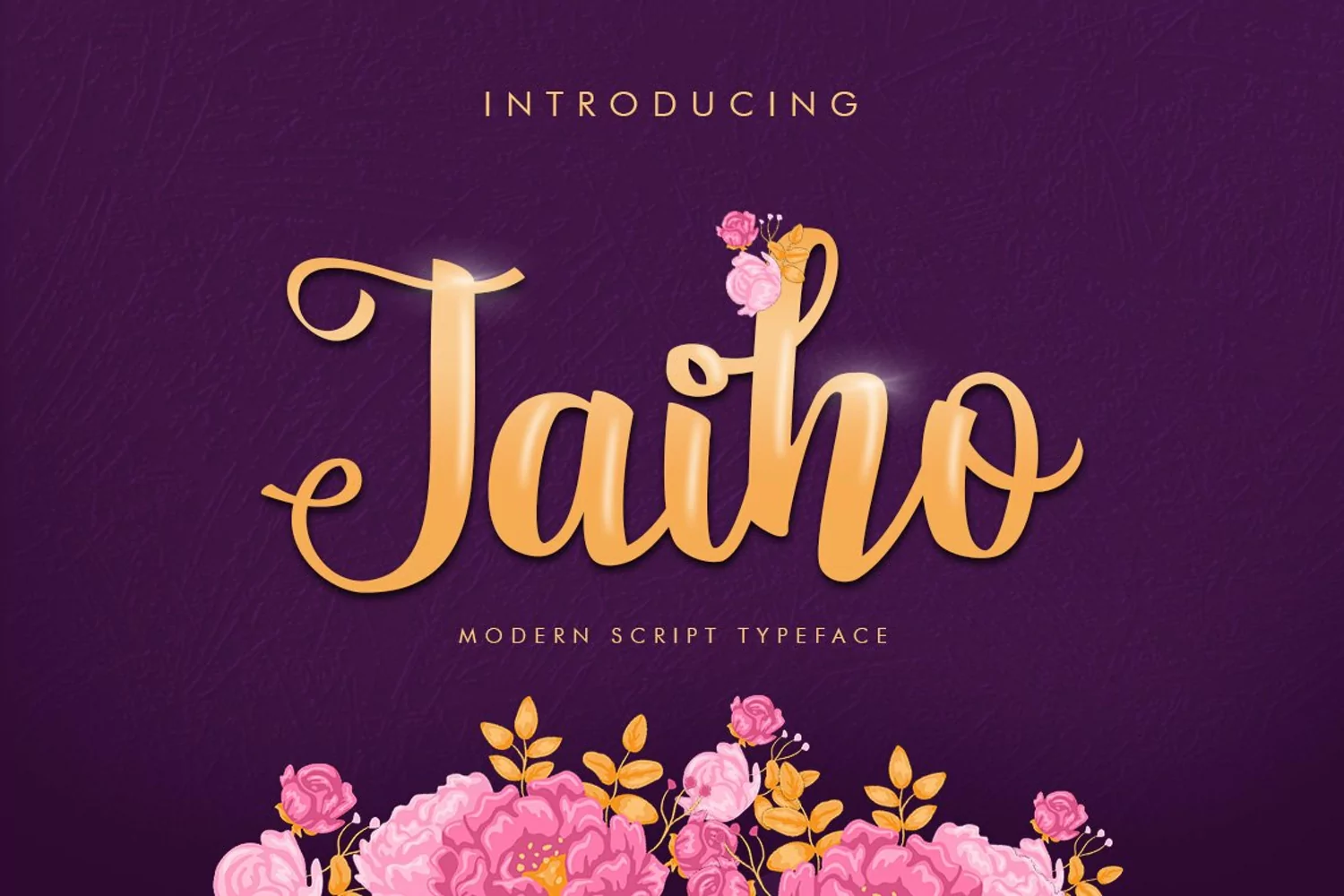
Jaiho is a font duo featuring a beautiful script font alongside a simple sans serif font. The Jaiho script font has a bold brush style characteristic. Combine the two font styles for seamless designing or use them alone. Either way, you're sure to create something amazing!